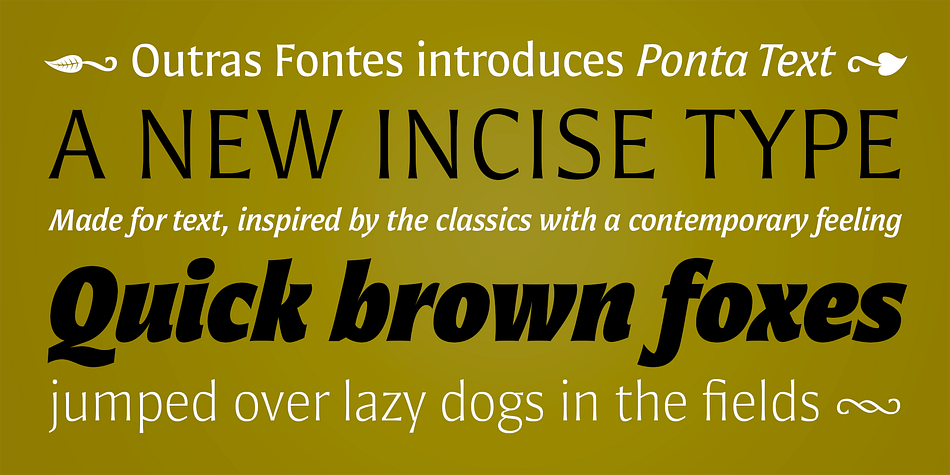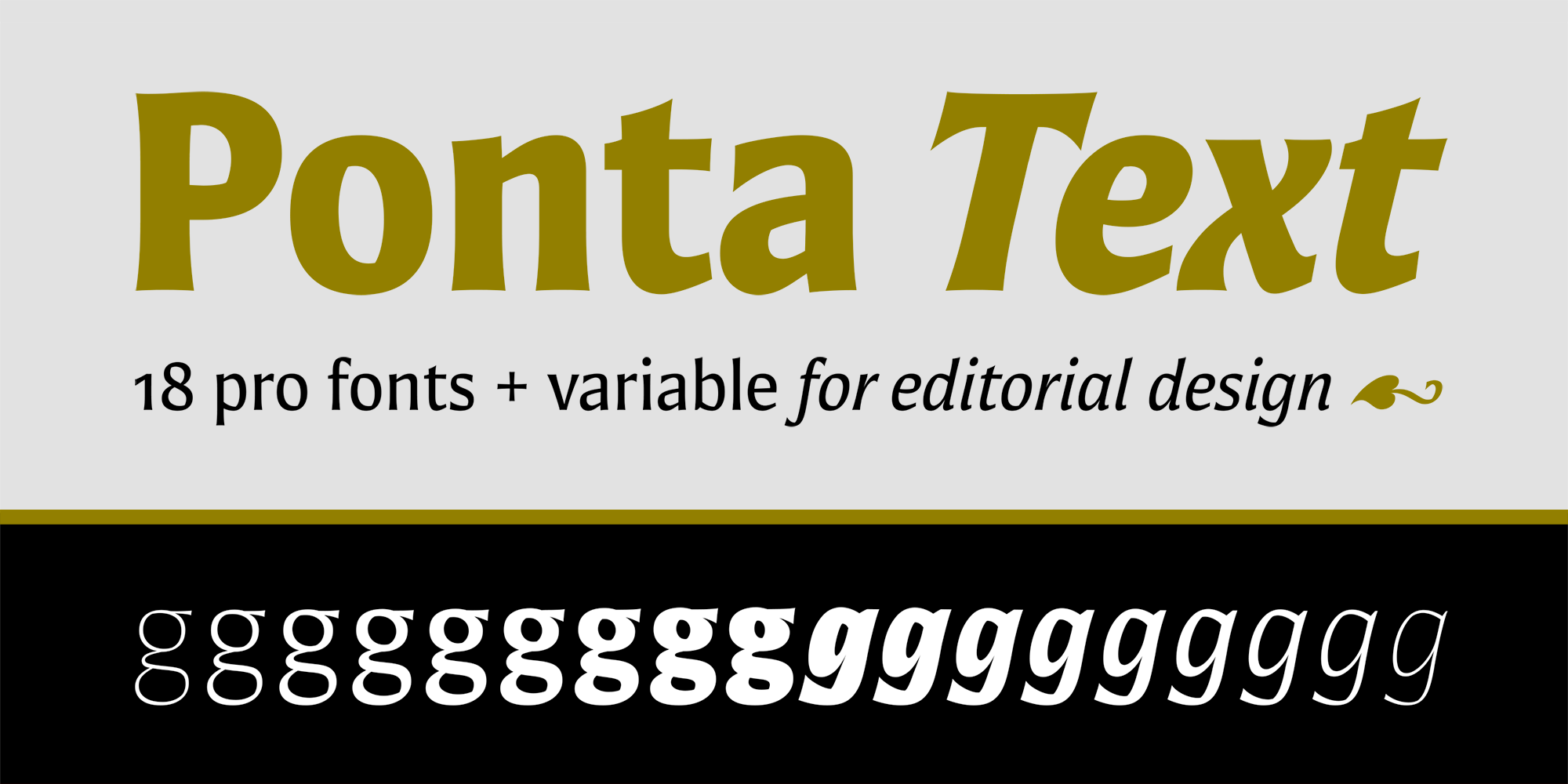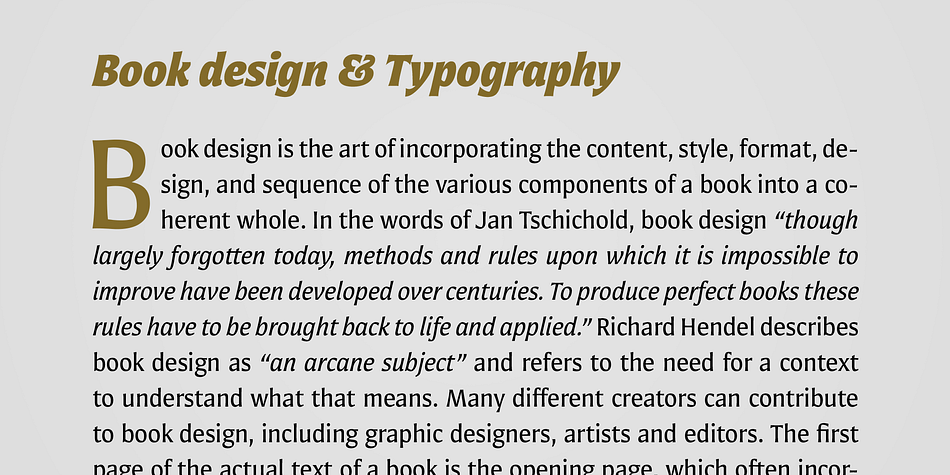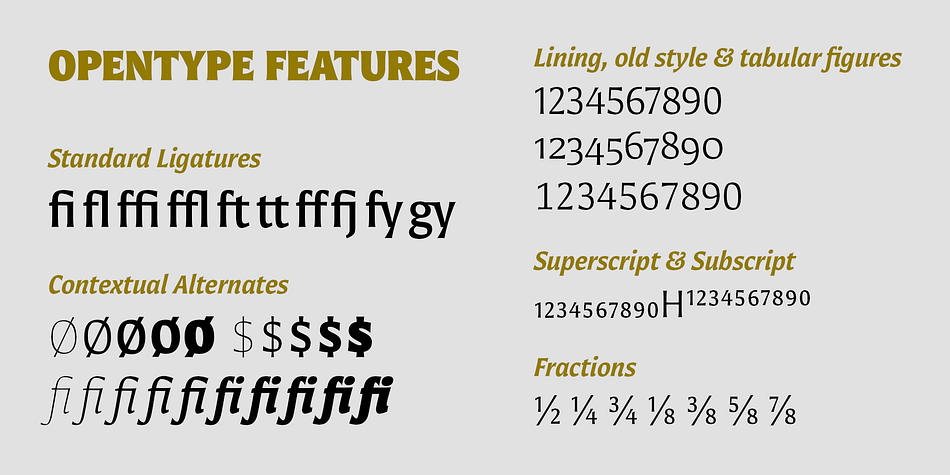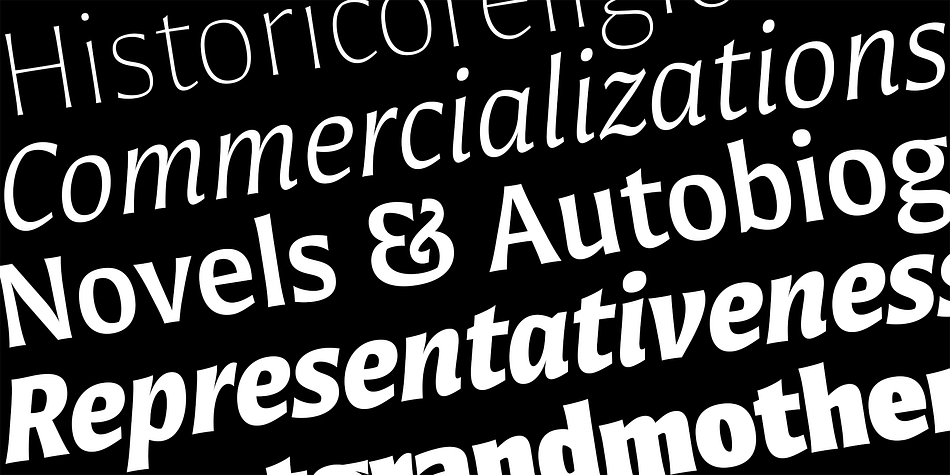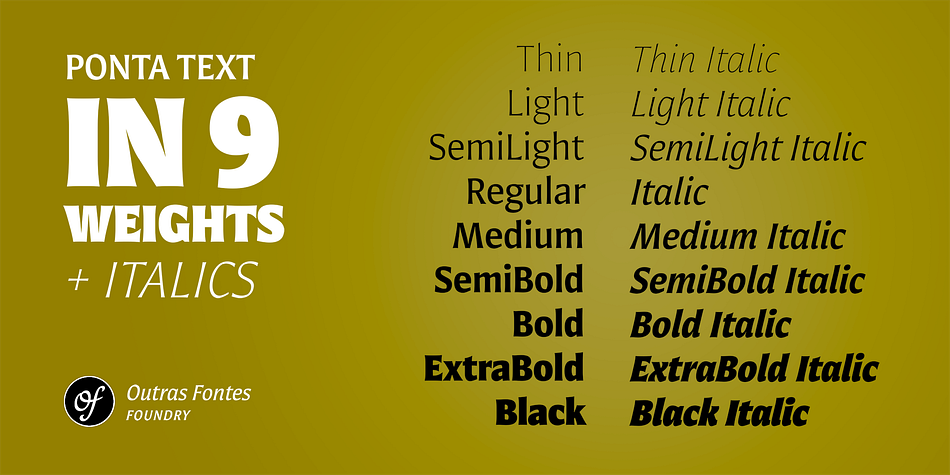
Ponta Text
Designed by Ricardo Esteves Gomes, Ponta Text is a sans serif font family. This typeface has twenty styles and was published by Outras Fontes.
Ponta Text is an elegant incise semi-serif family designed for editorial purposes. It includes 18 fonts – 9 weights and their respective italics – that are also available in 2 variable fonts – Roman and Italic. Designed for legibility and readability, the family is specificaly intended for long-form texts such as books and magazines, in both print or digital media. With its subtle details and elegant sharp corners, Ponta Text can add a touch of sophistication to your designs. All the fonts include an array of typographic features such as ligatures, contextual alternates, lining, oldstyle, and tabular figures, as well as superscript / subscript numerals and fractions.